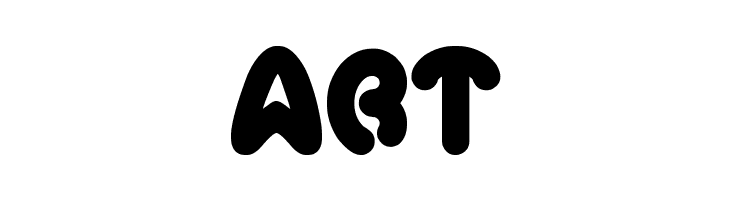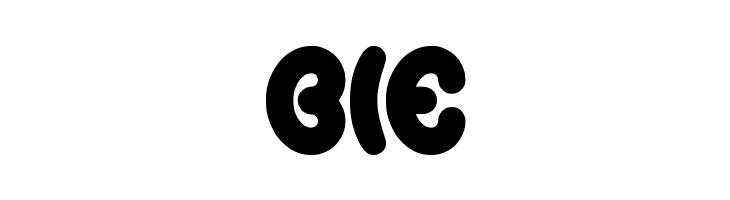
• Covert Ops Title Italic
A bold, italicized stencil-style font with a military-inspired design.
• Covid-19 Contagion
A bold, playful handwritten font with unique thematic elements.
• Cowboya Bifurcated
A decorative bifurcated font with a bold, Western-inspired style.
• CowboyaBifurcated
A bold, decorative font with bifurcated serifs and intricate designs.
• CrackKing
A bold, edgy font with sharp angles and dynamic strokes.
• Craps of Paper
A playful, collage-style font with a hand-drawn, chalk-like texture.
• Crash Mounty
A bold, playful font with rounded edges and a slightly condensed style.
• Crasher
A bold, textured brush font with an energetic and artistic style.
• Cratti free
An elegant, cursive script font with ornate flourishes.
• Crawley
An elegant script font with flowing, cursive letters and decorative swirls.
• Crayone personal use only
A playful, textured font resembling crayon or chalk writing.
• CRAZY RAS
A playful, hand-drawn font with bold, irregular outlines and quirky details.
• CrazyBrokenFont
A fragmented, edgy font with a dynamic and chaotic appearance.
• Crazzon
A dynamic, handwritten-style font with a textured, casual appearance.
• creamy butter
A bold, playful font with a rounded, bubbly design ideal for retro-themed projects.
• creamy butter
A bold, playful font with thick, rounded strokes and a retro-modern style.
• Creamy Sunset
A playful, bold handwritten font with smooth, rounded edges and a dynamic script-like style.
• Creasi Script
A bold, flowing script font with dynamic curves and elegant style.
• Created Filled Italic
A bold, italic, futuristic font with a double-line filled effect.
• Created Filled Regular
A bold, geometric font with a filled, block-like design and parallel line detailing.